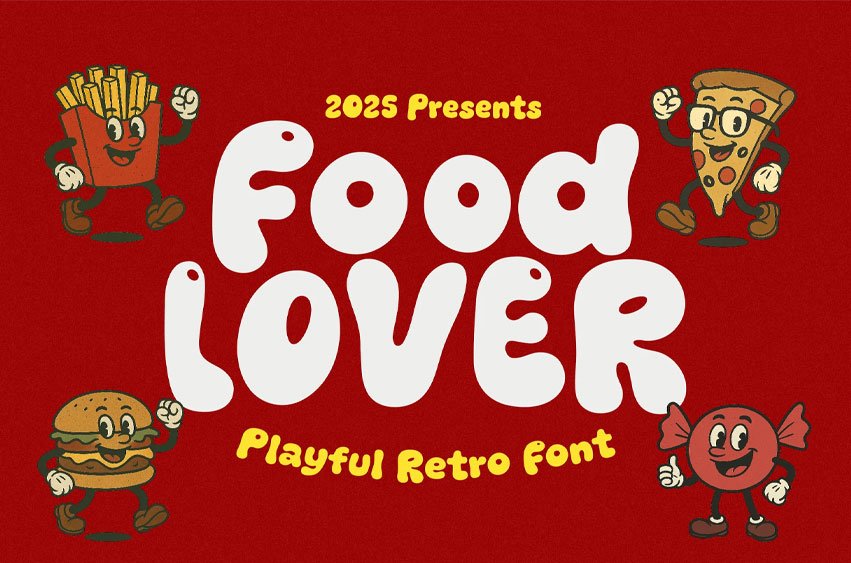
Food Lover Font is a playful retro font with a bold, rounded style that instantly brings joy and warmth to your designs. Its chunky letterforms and nostalgic curves make it perfect for projects that need a fun and inviting vibe. Whether you’re creating branding for a restaurant, designing a menu, or crafting an eye-catching logo, this font adds a touch of vintage charm while keeping things fresh and modern.
Inspired by tropical beaches and sunny days, Food Lover also works beautifully for beach and tropical-themed designs. Its strong retro personality makes it stand out on posters, packaging, signage, and promotional materials.
- Bold Retro Style – Perfect for attention-grabbing headlines and branding.
- Versatile Usage – Works for food, menu, restaurant, logo, beach, and tropical themes.
Bring your creative ideas to life with the friendly, nostalgic energy of Food Lover—a font that’s as delightful as the food it celebrates.